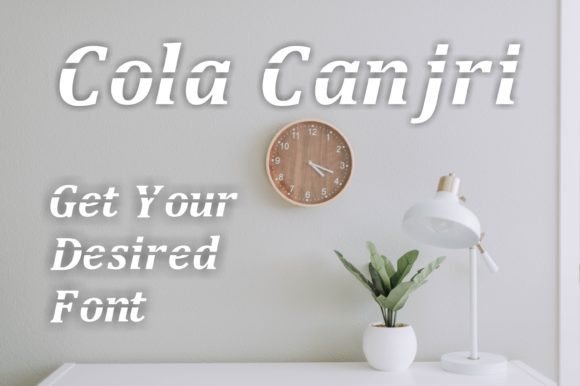
The Perfect Blend: Discovering the Magic of Cola Canjri Font
As a designer, there’s nothing quite like the thrill of discovering a new font that sparks your creativity. You’re browsing through a library of fonts, and suddenly, one catches your eye. Its unique style, its flair, its ability to elevate even the simplest design to new heights. That’s exactly what happens when you stumble upon the Cola Canjri Font.
Cola Canjri Font is a stunning display font designed specifically for magazines, crafts, and any other creative project where a touch of elegance is needed. Its beautiful, hand-drawn style adds a personal touch to your designs, making them truly stand out from the crowd. Whether you’re a seasoned designer or just starting out, this font is a valuable addition to your library.
With the Cola Canjri Font, the possibilities are endless. From magazine covers to wedding invitations, this font is sure to bring a touch of sophistication and whimsy to your designs. So why not give it a try and see what magic you can create?
Cola Canjri Font Key Features
- Font Family: Cola Canjri, a display serif font designed by Indian type designer, Anurag Sahay
- Unique Characteristics: Inspired by traditional Indian scripts, Cola Canjri features a unique blend of modern and traditional typography, with intricate details and ornaments
- Language Support: Supports multiple languages, including English, Hindi, and other Indian languages
Designer Review: Cola Canjri Font
Overall, I was excited to dive into the Cola Canjri Font and see what it had to offer. As a designer, I appreciate unique and creative typography, and this font definitely delivers in that regard. ✨
- Unique Design**: The Cola Canjri Font has a distinctive, hand-drawn feel that sets it apart from more traditional font options.
- Expressive**: This font is perfect for projects that require a lot of personality and flair, as it’s able to convey a wide range of emotions.
- Highly Customizable**: The Cola Canjri Font comes with a range of customization options, making it easy to tailor the font to your specific design needs.
While the Cola Canjri Font has a lot going for it, there are a few limitations to be aware of. ⚠️
- Readability**: At certain font sizes, the Cola Canjri Font can be difficult to read, particularly for body text.
- Overuse**: Due to its unique design, the Cola Canjri Font can quickly become overused, losing its impact and effectiveness.
Overall, I think the Cola Canjri Font is a great addition to any designer’s toolkit. While it may have some limitations, its unique design and high level of customization make it a great choice for projects that require a lot of personality and flair.
Tip: Use the font for headings and titles to add a unique touch to your design.
Tip: Use the font for creative typography and add visual interest to your design.
Tip: Use the font for titles and headings to add a unique touch to your presentation or document.
Cola Canjri Font is ideal for:
1. Creative typography projects.
2. Branding and logo design.
3. Artistic and creative documents.
4. Unique and eye-catching presentations.
Alternatives to Cola Canjri Font for Designers
The Great Vibes Font is a modern script font that is perfect for creating a friendly and approachable atmosphere. It’s ideal for use in logos, signage, and other branding materials where a casual and relaxed feel is desired.
Compared to Cola Canjri Font, Great Vibes Font has a more rounded and elegant appearance, making it suitable for a wider range of applications. It’s also more versatile and can be used for both digital and print media.
The Alex Brush Font is a beautiful script font that is reminiscent of handwritten text. It’s perfect for use in creative projects, such as invitations, menus, and other materials where a personal touch is desired.